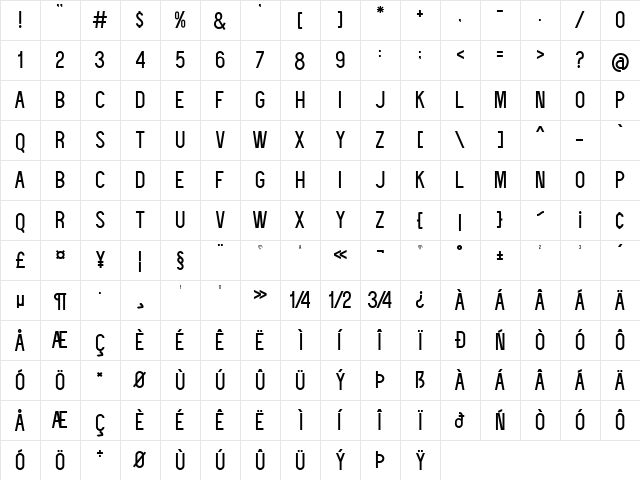
deflagrate regular demo Regular Font Preview
deflagrate regular demo Regular
deflagrate regular demo Regular Font Details
| Foundry | Aprialdhi Adhiwarna Sugih |
| Designer | Aprialdhi Adhiwarna Sugih |
Design Context for deflagrate regular demo Typeface
deflagrate regular demo is a composed and adaptable typeface that performs quietly and consistently across a wide range of design contexts.